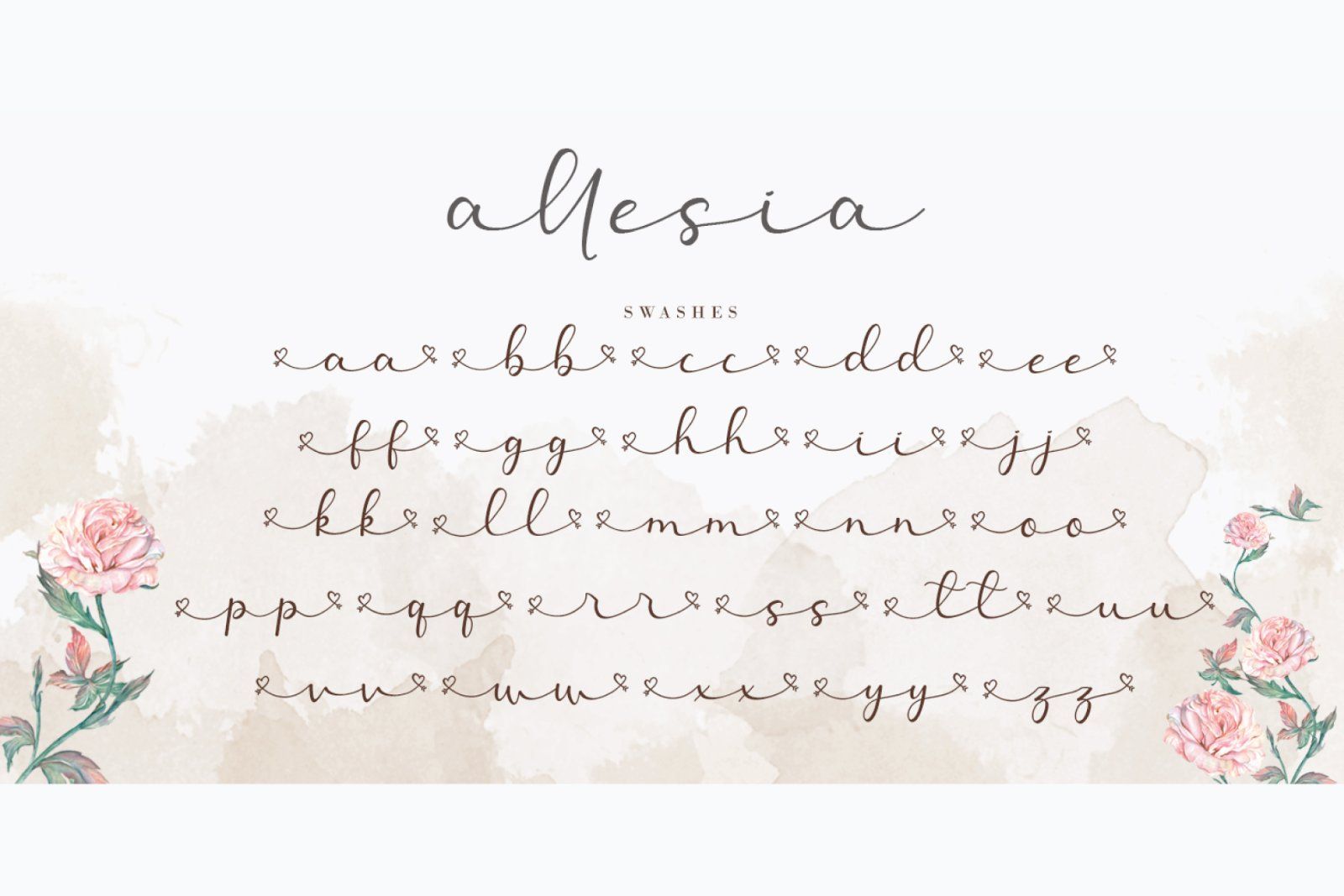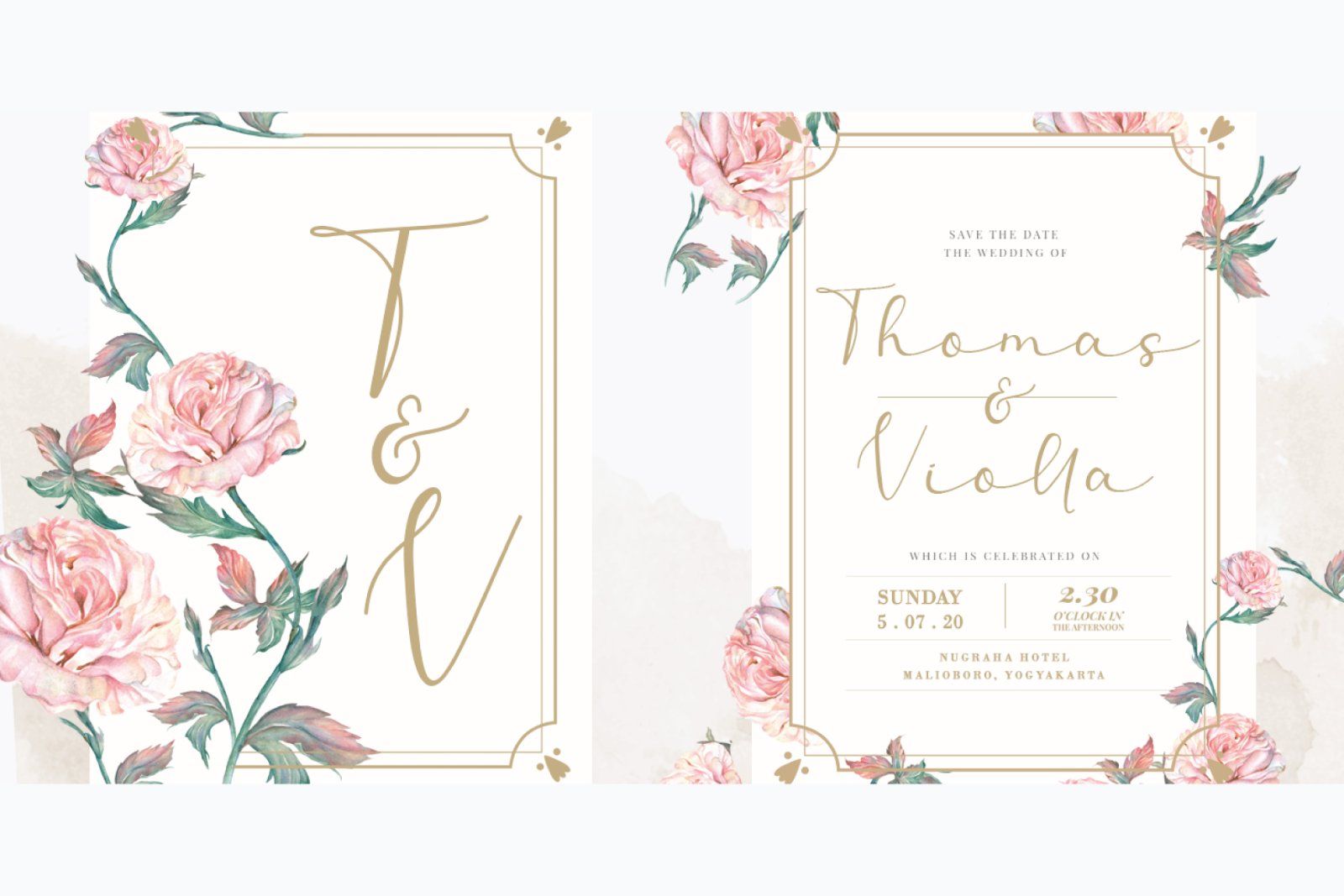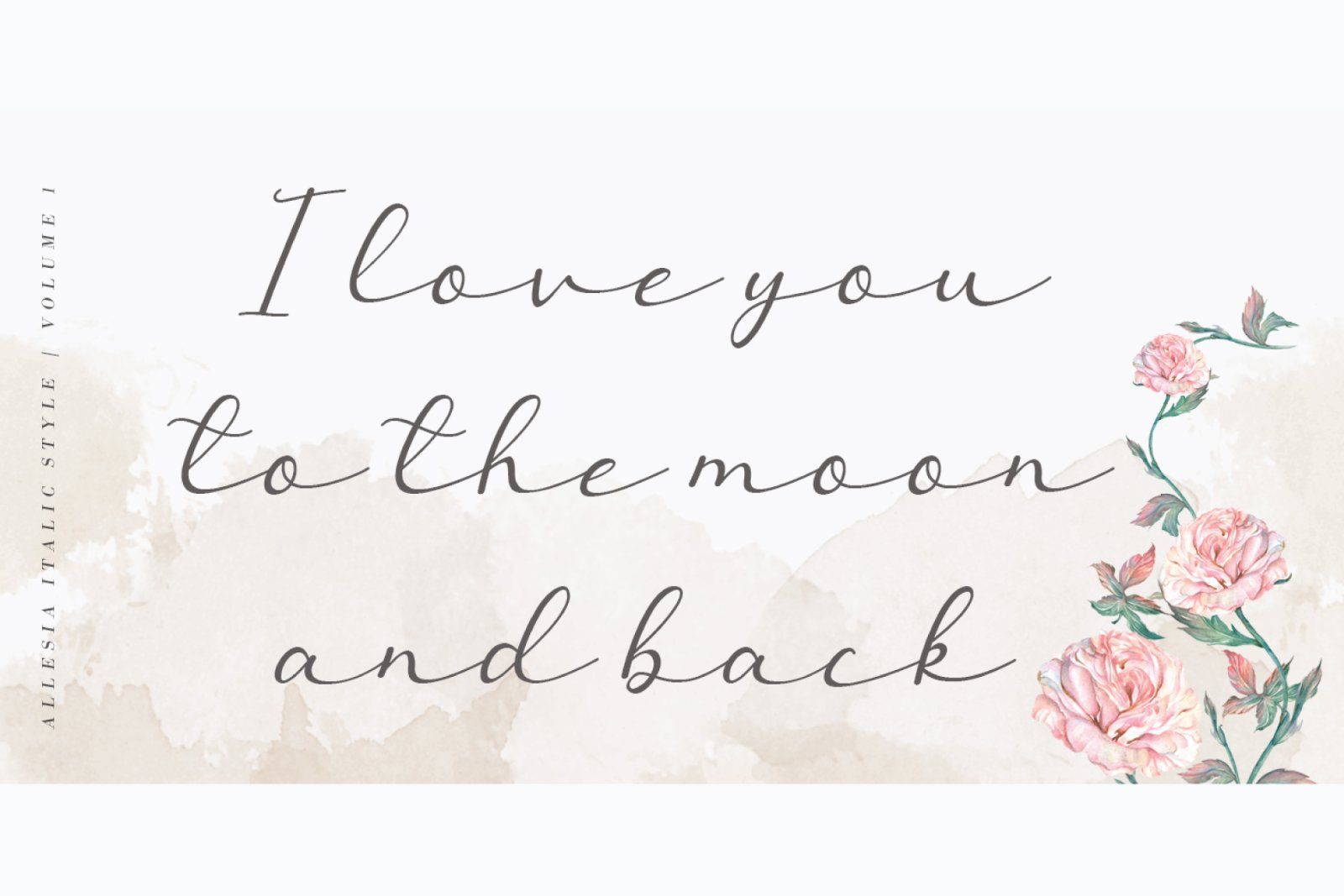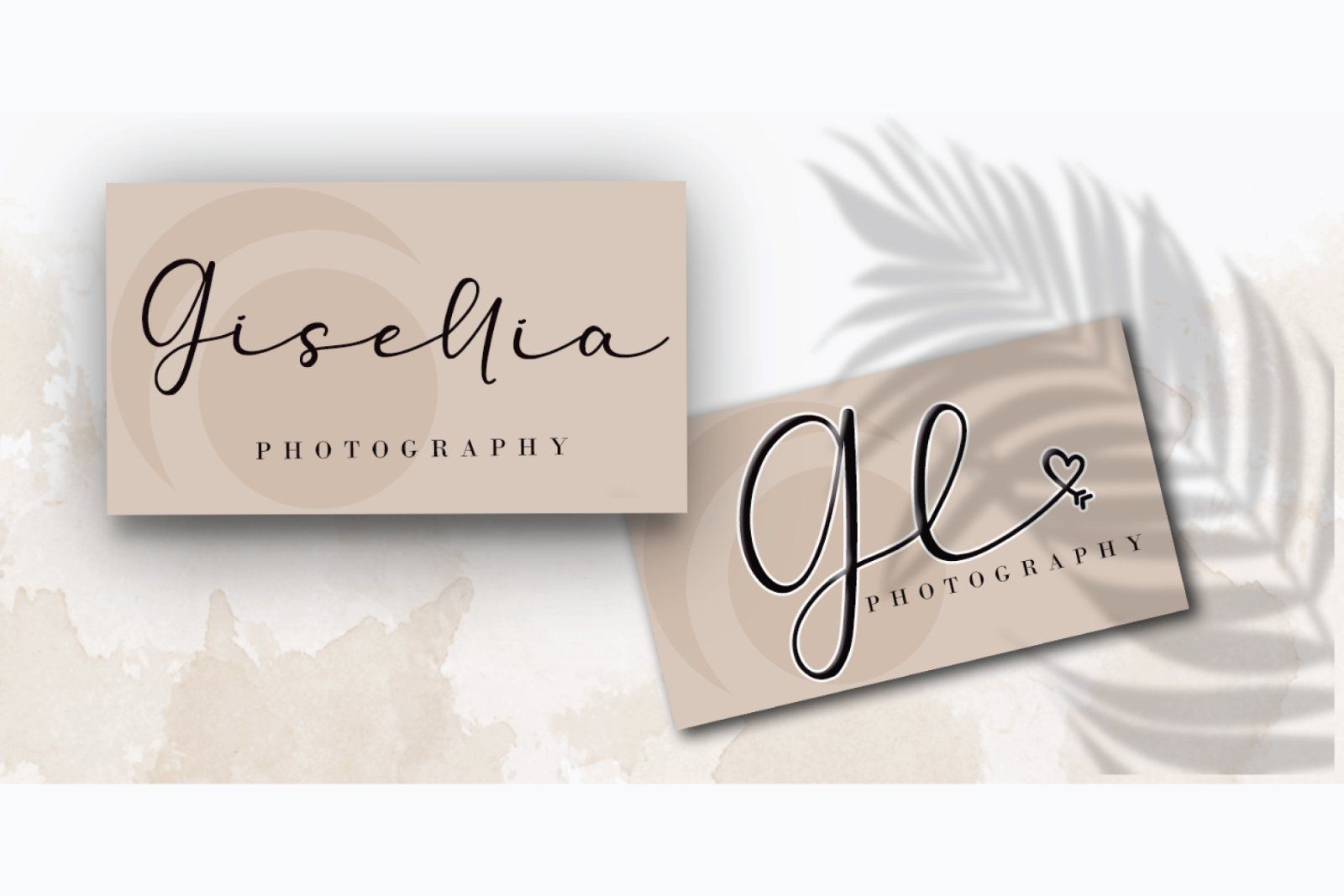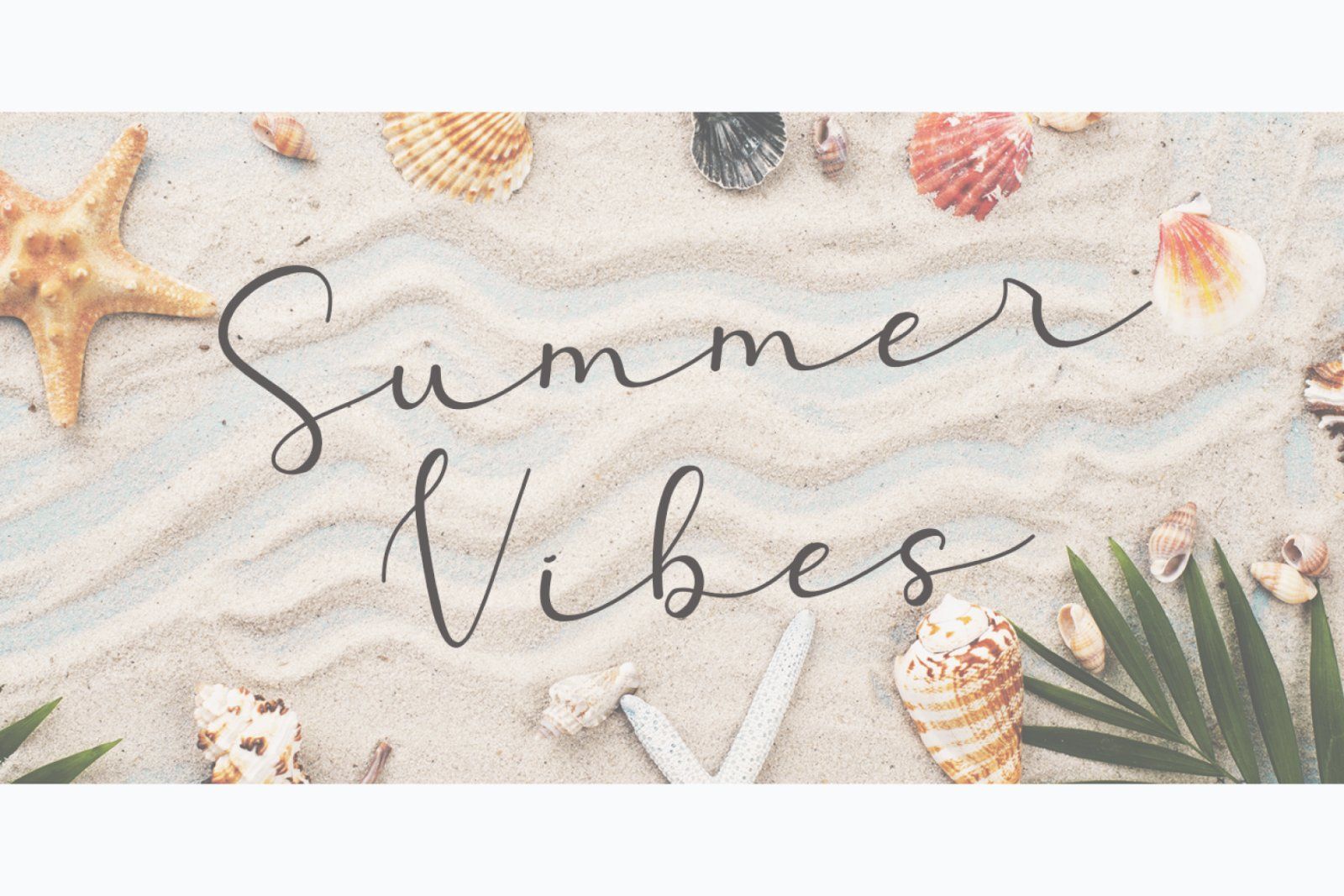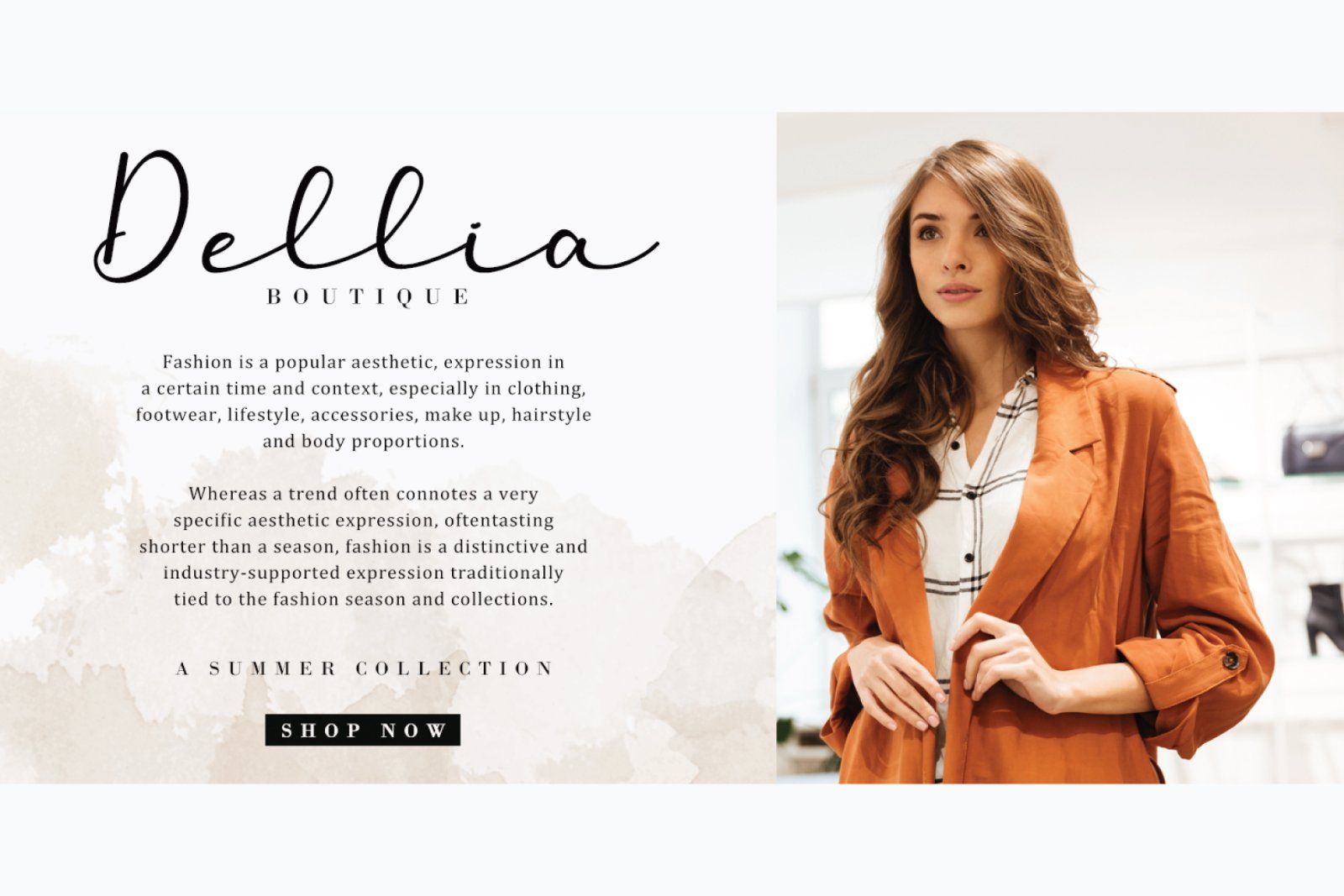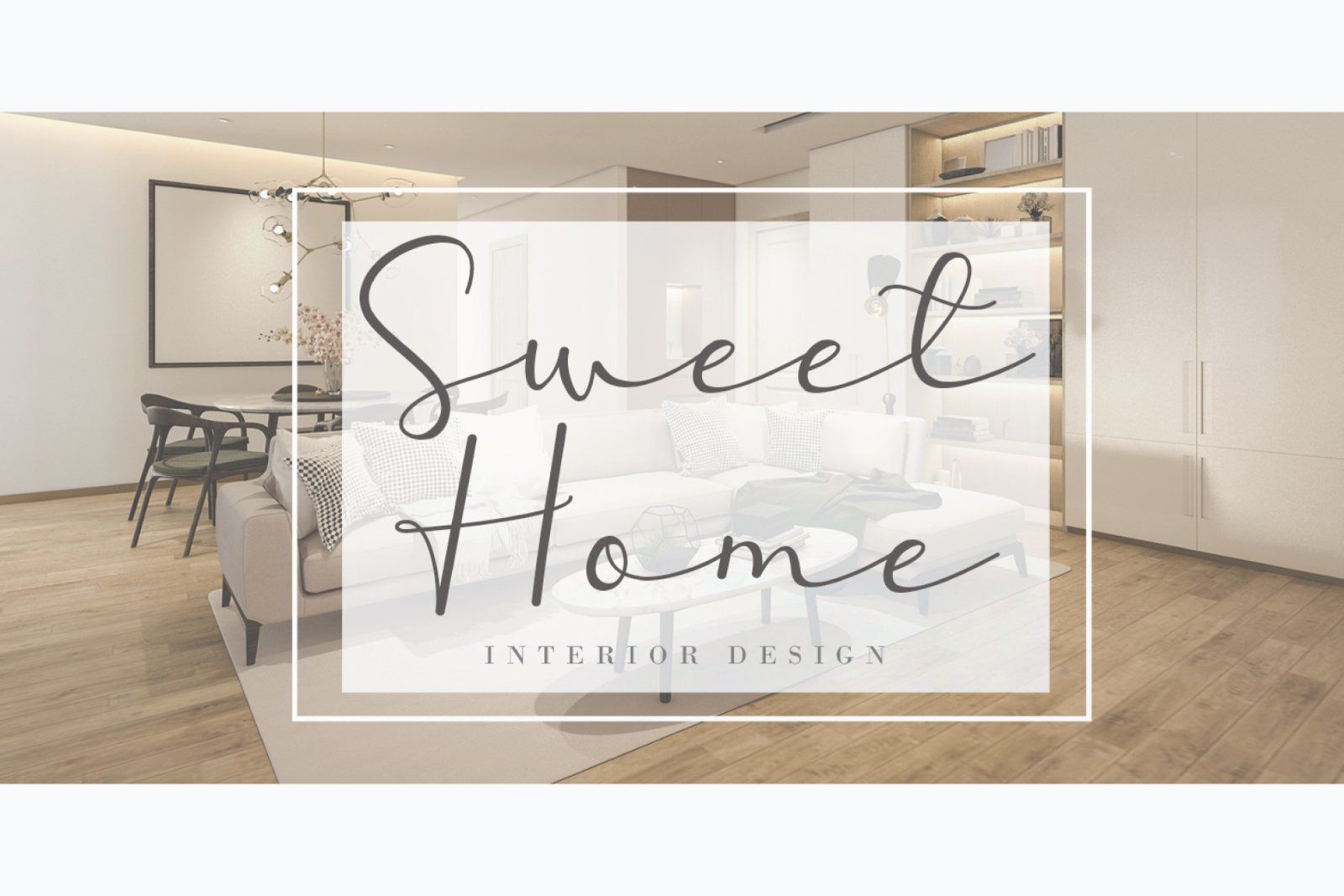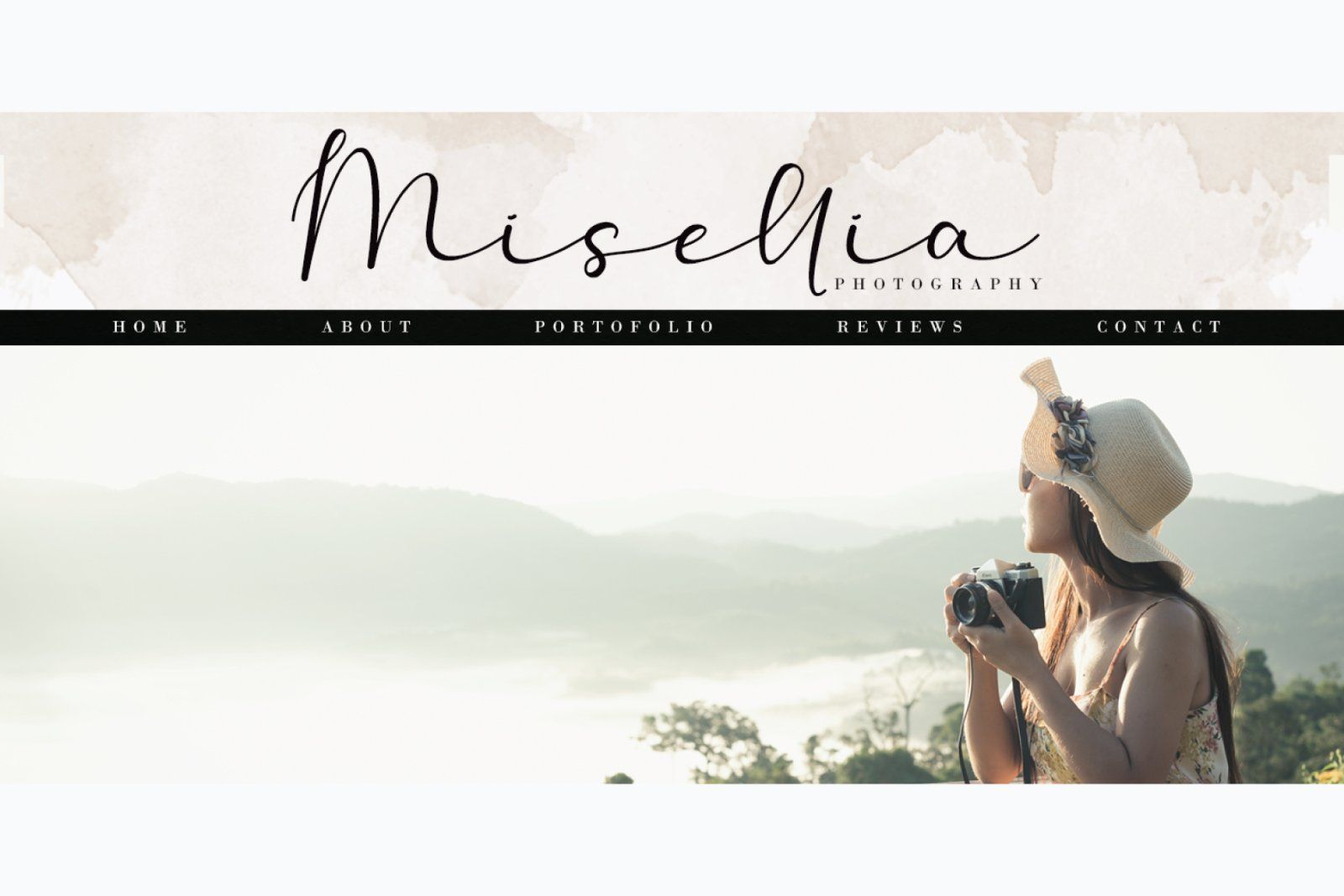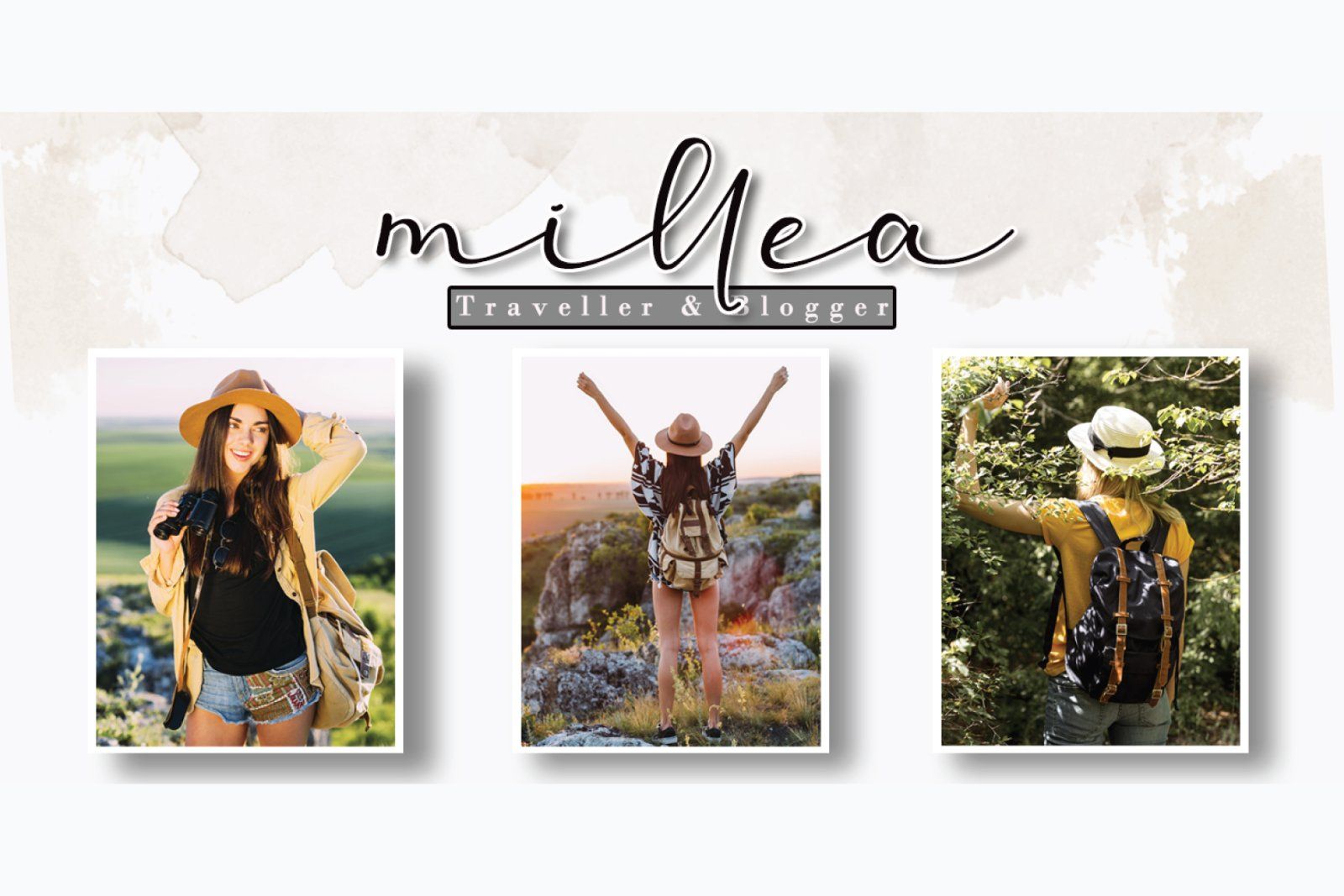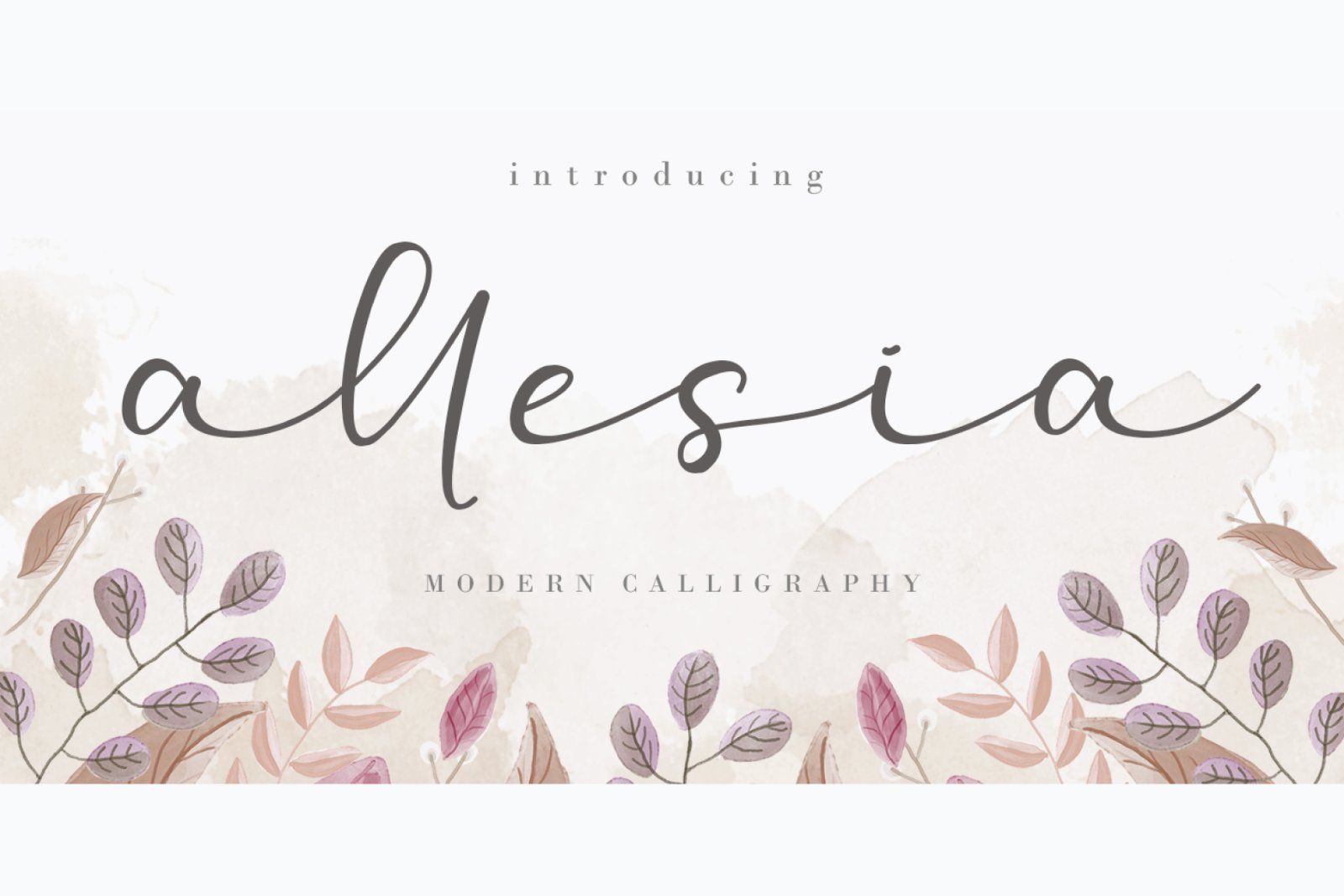
Allesia is a gorgeous handwritten font that brings its own unique style to any design project. It will elevate a wide range of design projects to the highest level, be it branding, headings, wedding designs, invitations, signatures, logos, labels, and much more!
This font is PUA encoded which means you can access all of the cute glyphs and swashes with ease! It also features a wealth of special features including alternate glyphs and ligatures.